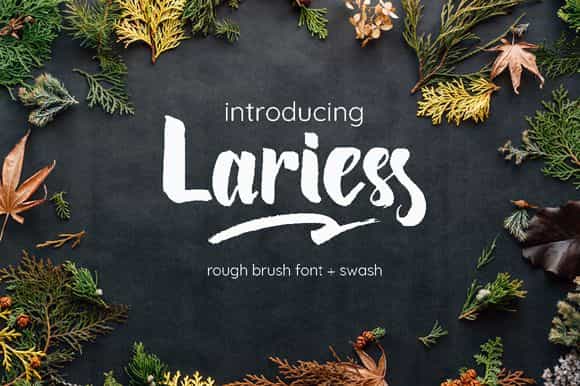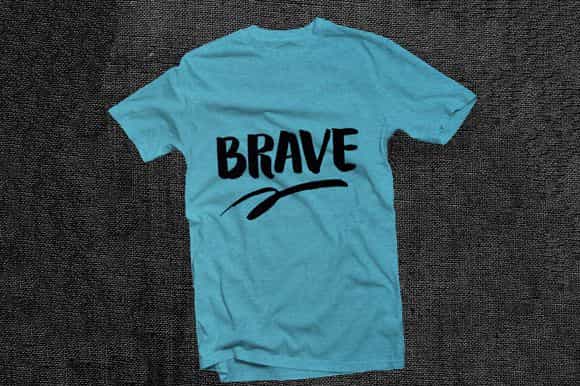
Lariess – is a hand-made brush font made by Flamde Studio. Lariess is a modern hand-made brush type. It will make your design chic and stylish. Lariess was painted on paper and then digitized after to give the best results for your design.